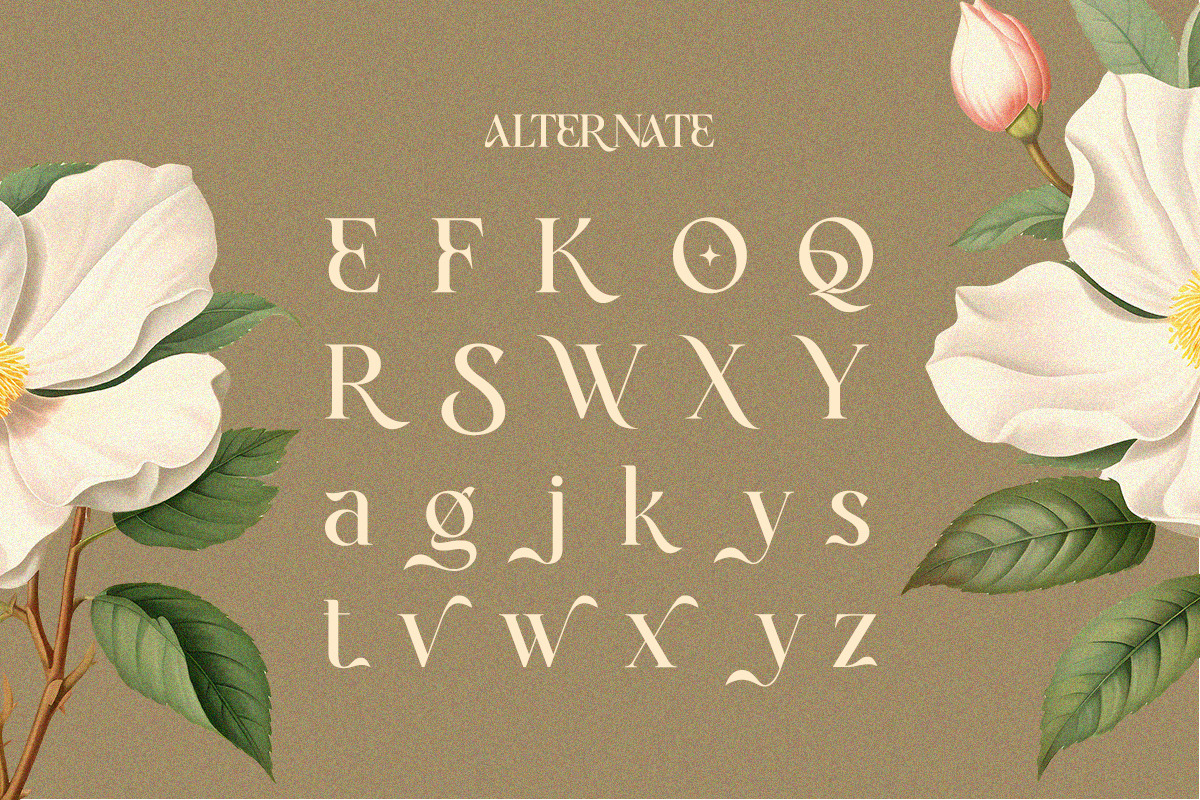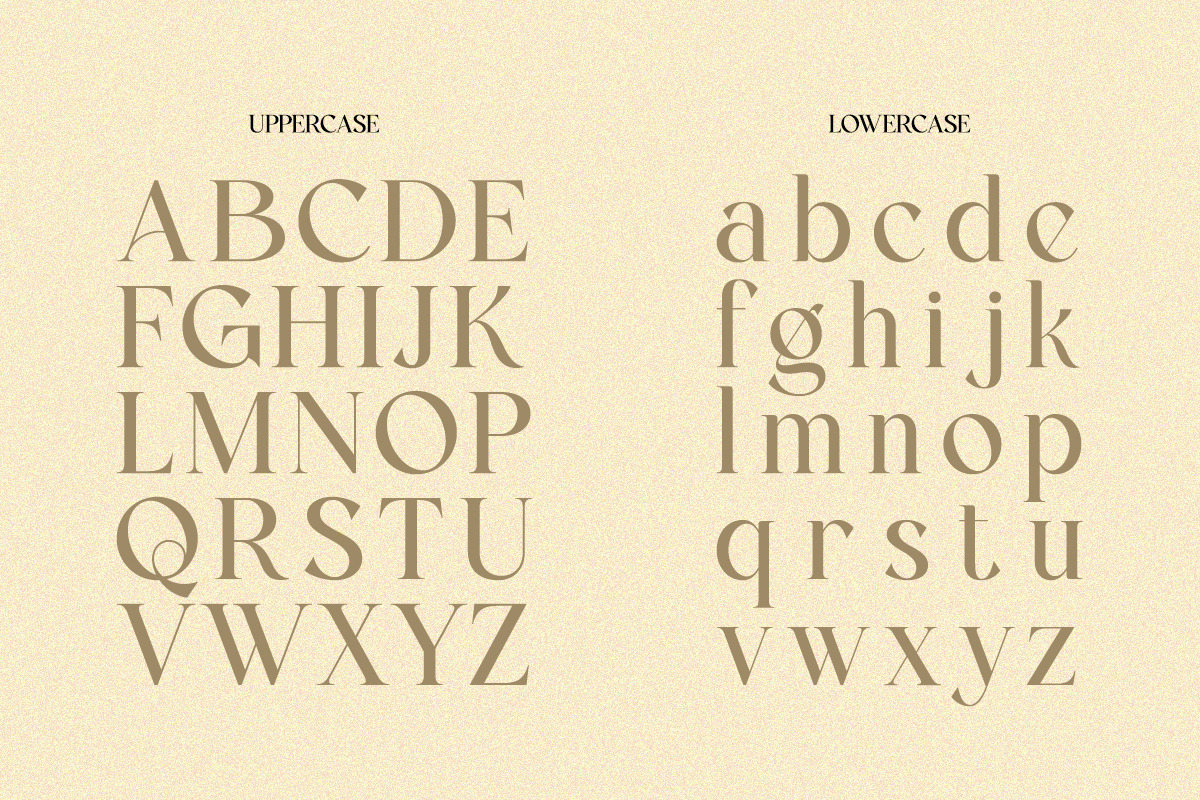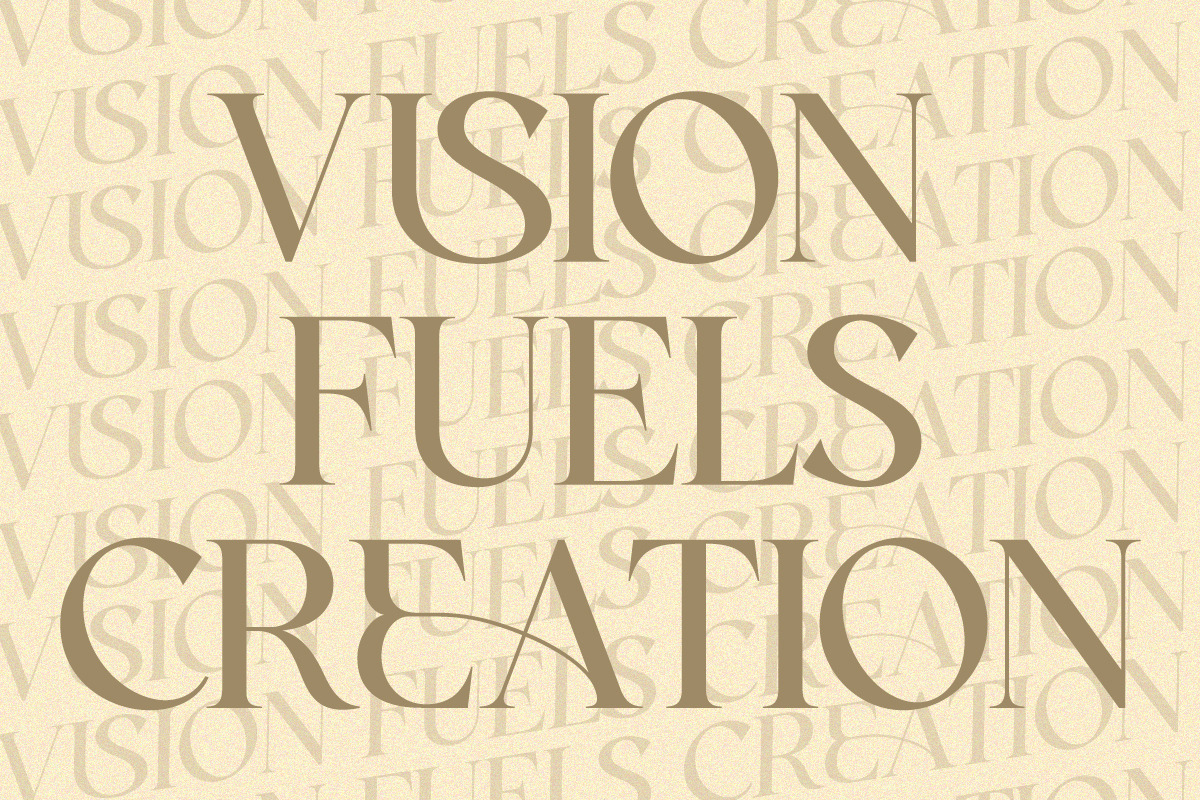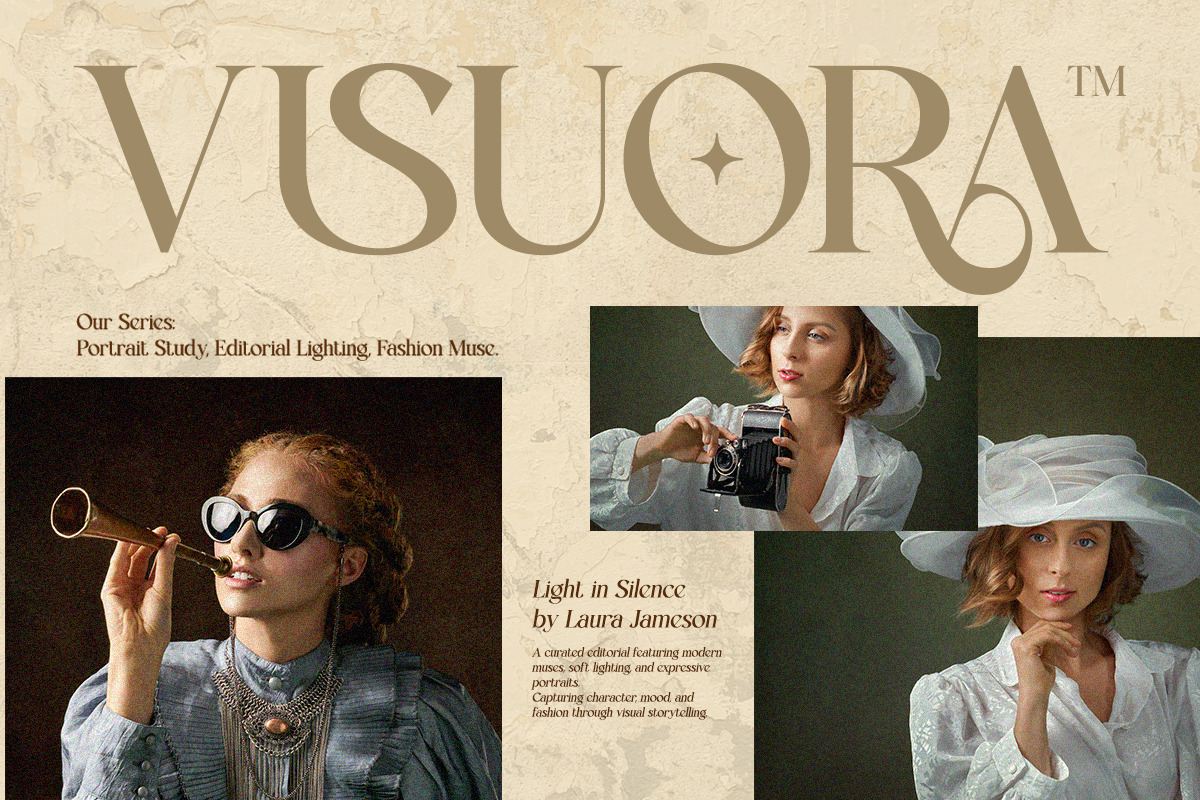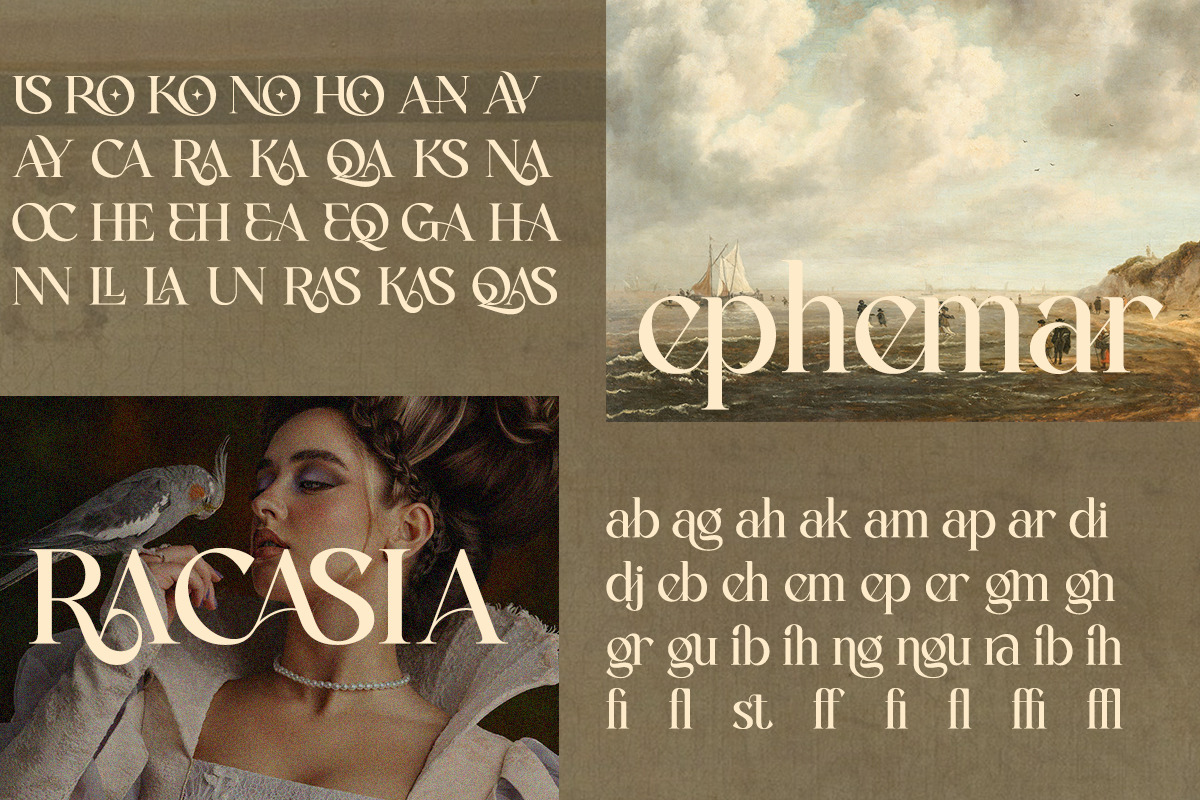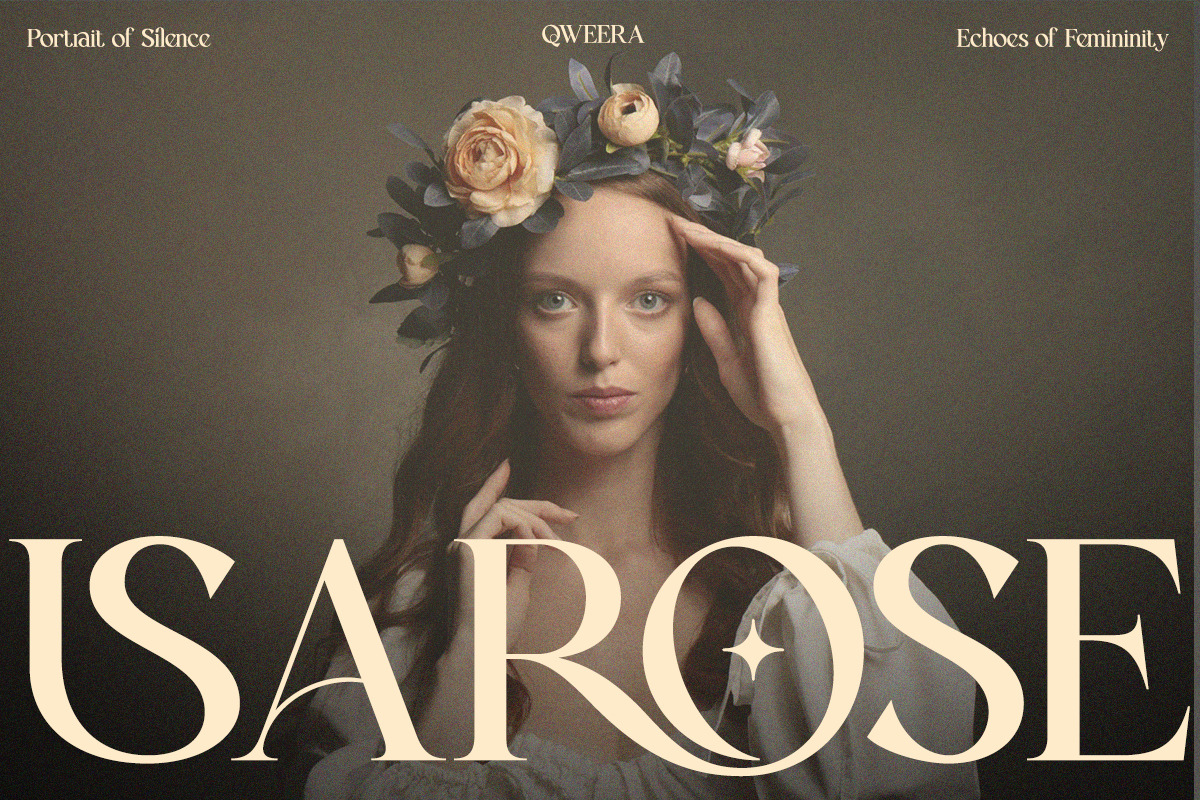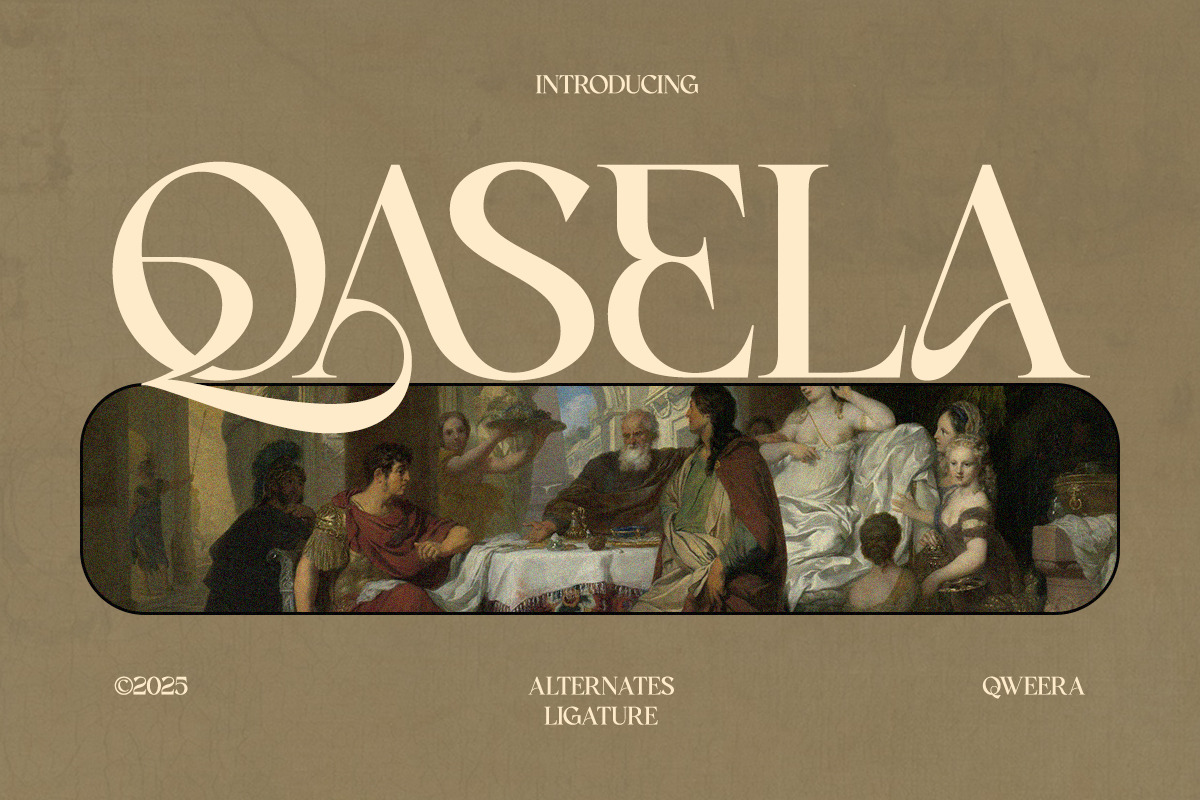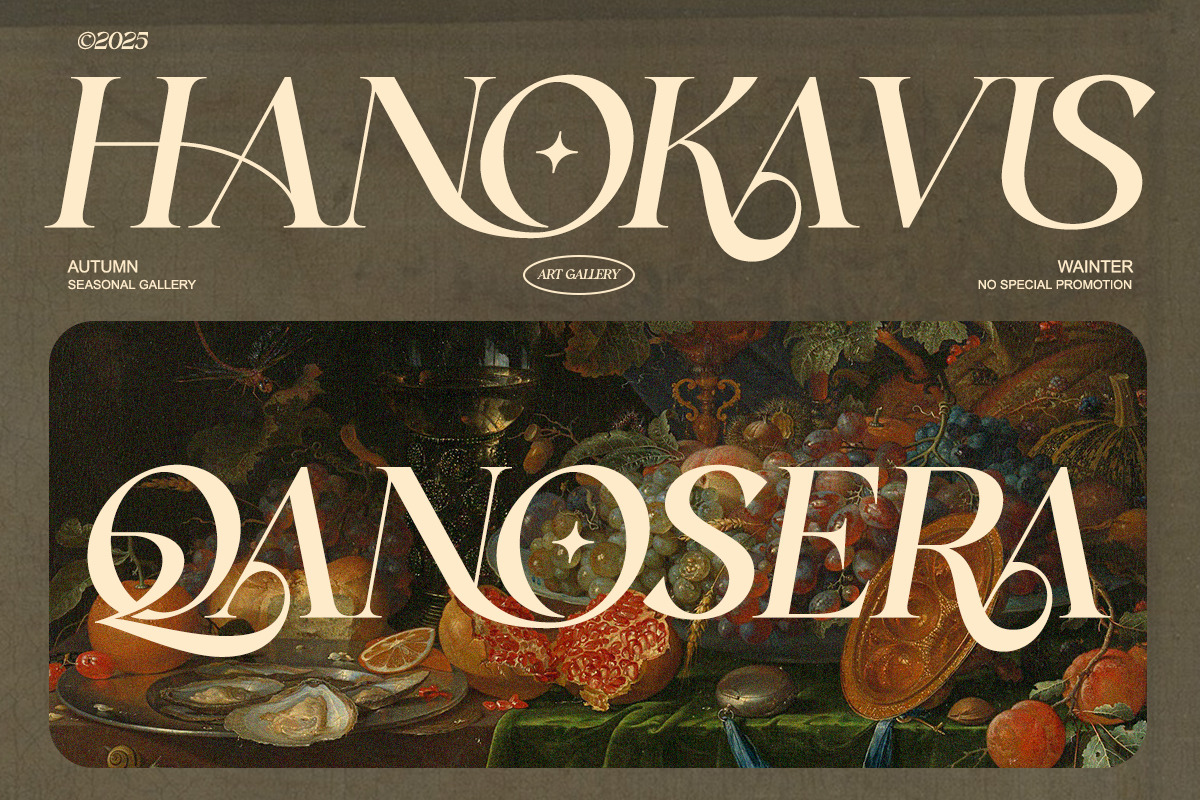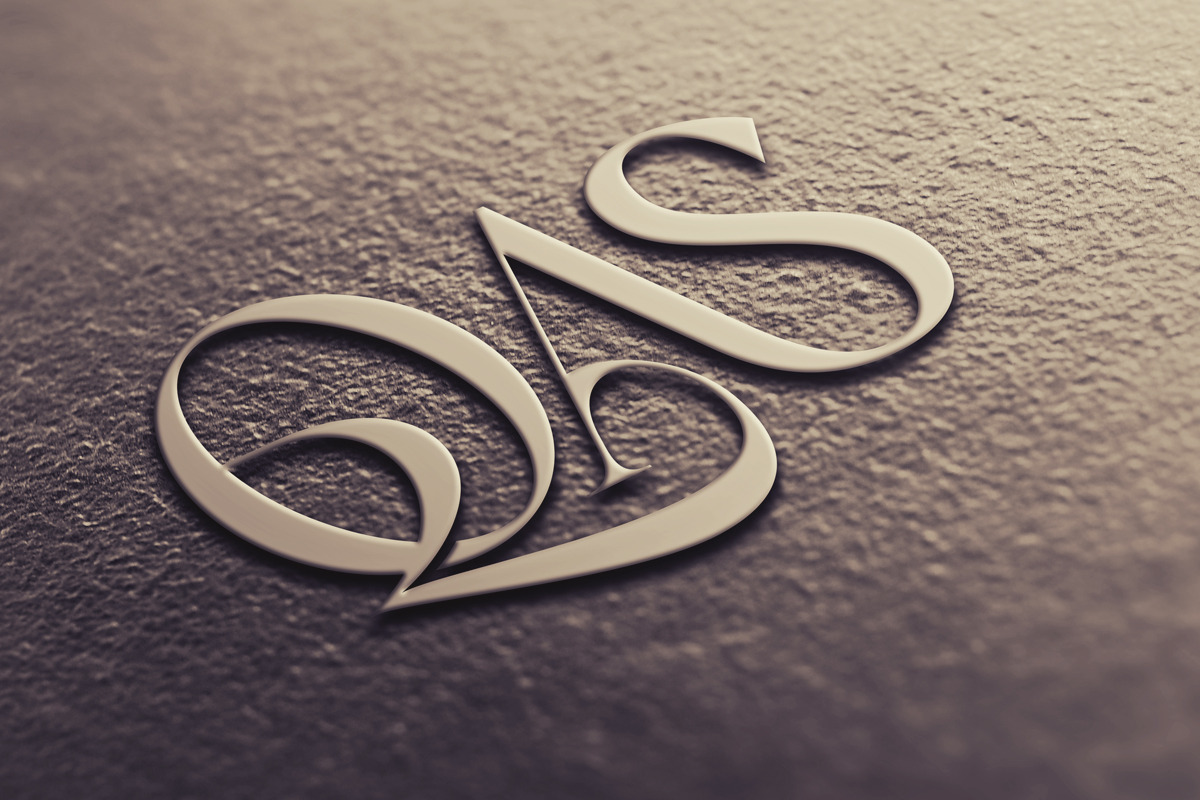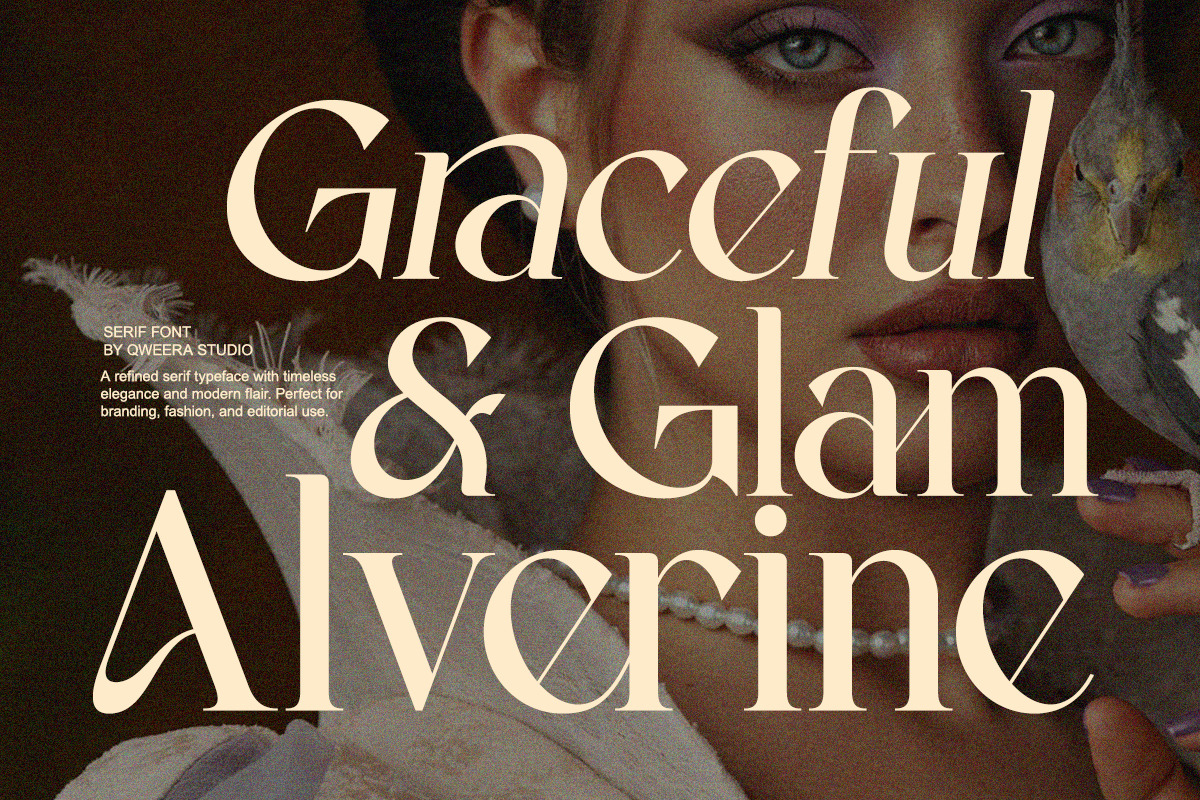
Qasela - Retro Stylish Serif Font
Introducing Qasela – Retro Stylish Serif Font, a striking typeface that merges classic vintage aesthetics with modern stylish details. With its bold curves, unique alternates, and sharp ligatures, Qasela brings a strong personality to every design it touches.
Designed for logos, posters, fashion editorials, packaging, and branding projects, Qasela stands out as both nostalgic and contemporary. Its elegant character set makes it versatile for everything from bold headlines to stylish invitations.
Featuring alternates, ligatures, and multilingual support, this font ensures maximum creativity and professional usability for modern designers.
Step into timeless elegance with Qasela, a serif font that celebrates both retro sophistication and stylish modern appeal.
✨ Font Features
- Regular & Italic
- Alternates & ligatures
🎯 Perfect For
- Vintage branding
- Fashion logos
- Posters & advertising
- Editorial design
- Packaging & identity
- Retro-inspired layouts